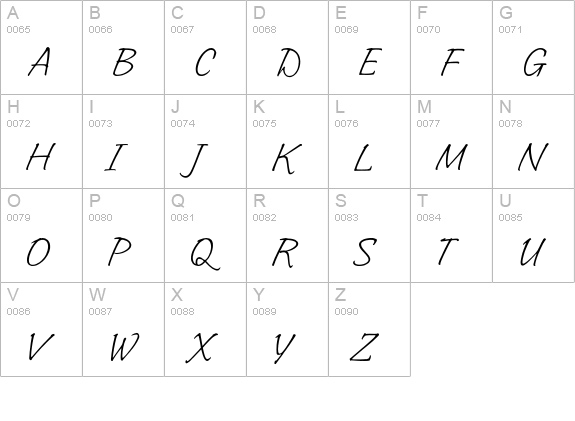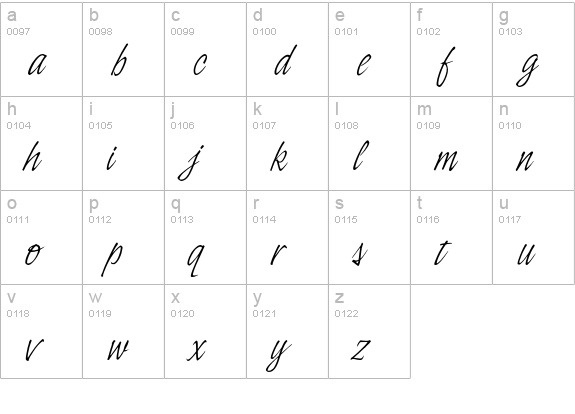
Indy Italic Std is a distinctive, italic variant in the Indy typeface family \xE2\x80\x94 well suited to design and typography projects.
Indy Italic Std font is a stylish and versatile typeface that exudes elegance and sophistication. With its sleek and slanted letterforms, this font effortlessly captures attention and adds a touch of class to any design project. Whether you're creating a logo, designing a website, or crafting a headline, Indy Italic Std is the perfect choice to make your text stand out. Its curvaceous and dynamic strokes give your words a sense of movement and energy, while maintaining a sense of professionalism and refinement. The free Indy Italic Std font is ideal for both print and digital applications. Its legibility and readability make it suitable for body text, while its unique and distinctive qualities make it perfect for headlines and display purposes. The font's italic style adds a subtle flair and adds an extra layer of visual interest to your designs. One of the best things about Indy Italic Std font is that it is freely available to download at FontsMarket.com. This means that you can easily access and use this amazing typeface in your design projects without any cost. Its availability as a free font makes it accessible to designers of all levels, from professionals to hobbyists, ensuring that everyone can benefit from its beauty and versatility. So, if you're looking for a font that combines sophistication, style, and accessibility, look no further than Indy Italic Std. Download it for free at FontsMarket.com and elevate your designs to new heights.